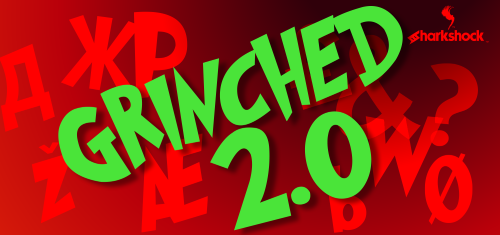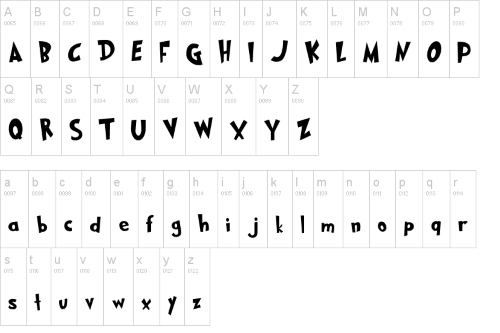
Grinched Font
Grinched font
Grinched 2.0 Font delivers a jagged, chaotic, and whimsical character — ideal for Halloween themes, spooky posters, or horror-style designs. Its irregular, scratchy strokes and unsettling vibe evoke playful eeriness and a mischievous energy. Grinched 2.0 is perfect when you want a design to feel eerie, rebellious, or festively spooky.
Font Name:  Grinched
Designer: Sharkshock
Style: Cartoon